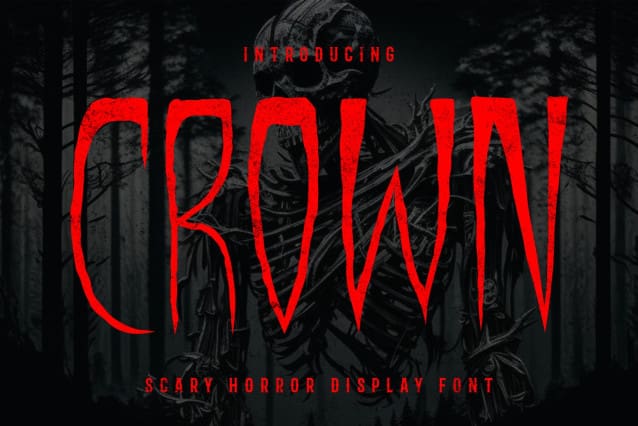
Crown Horror Font
Crown Horror Font a captivating font designed to immerse you in a world of horror and darkness. With Crown Horror, your text becomes a chilling testament to the macabre, combining the regal elegance of a crown with the haunting essence of the horror genre.
Each letter of CROWN is intricately crafted to embody the sinister allure of horror. The twisted and jagged edges evoke a sense of unease, while the crown motifs add a touch of regal mystique. Whether you’re creating spooky Halloween designs, eerie movie posters, or gothic-themed artwork, CROWN will bring your text to life with an air of sinister sophistication.